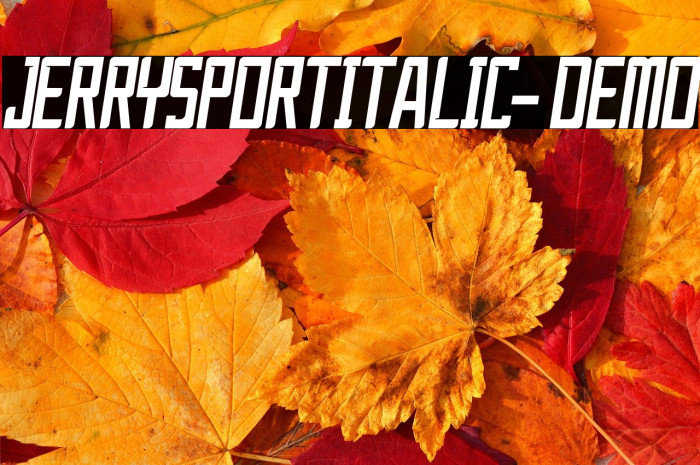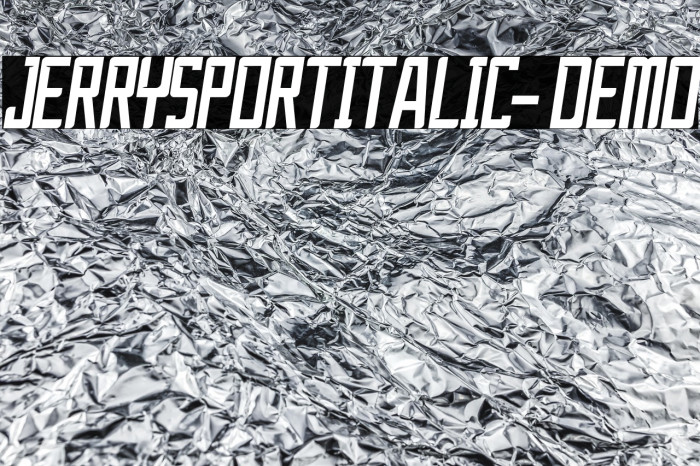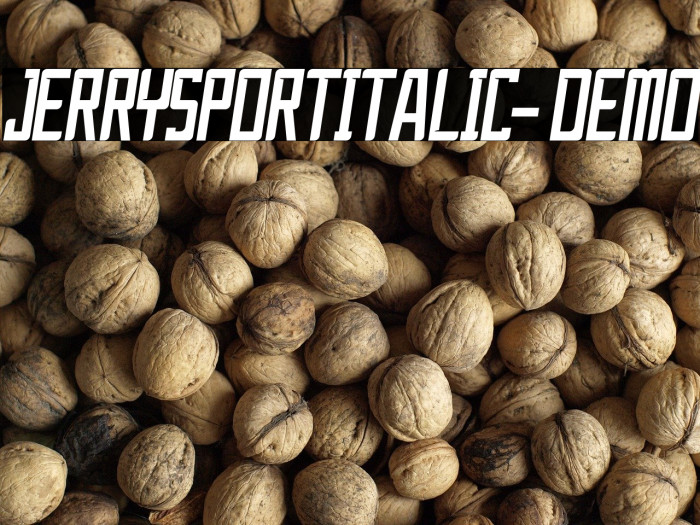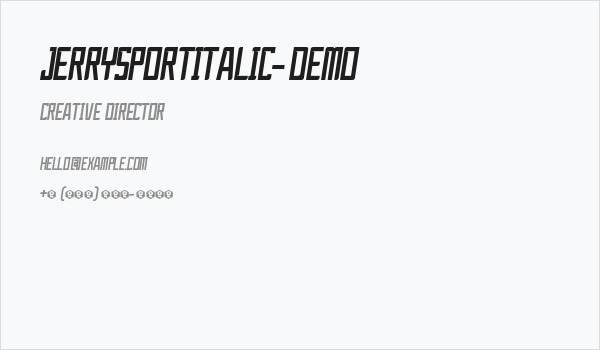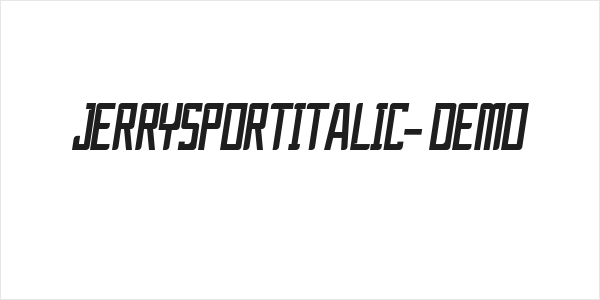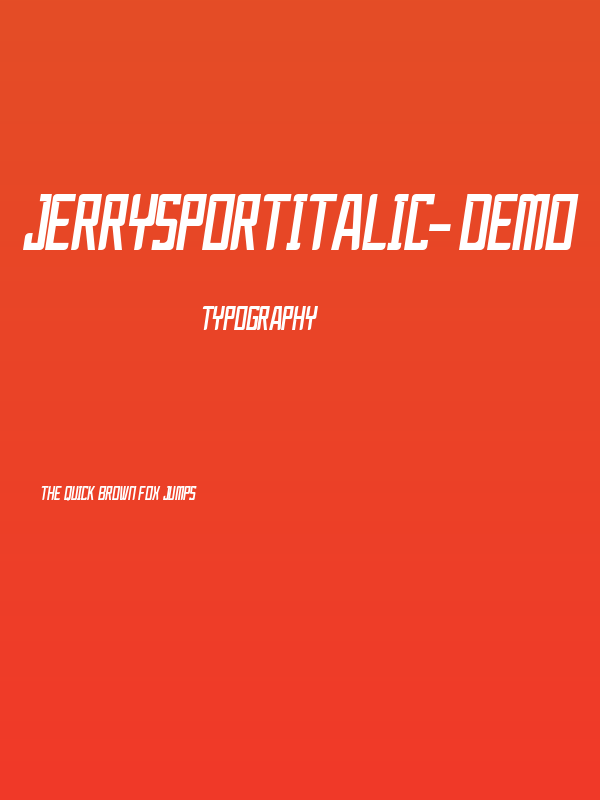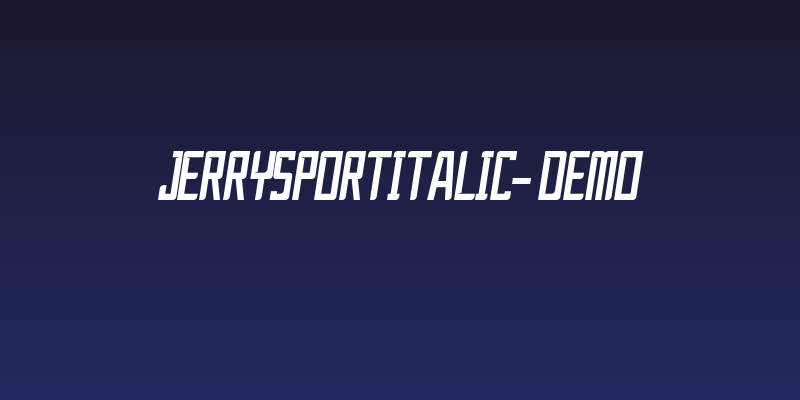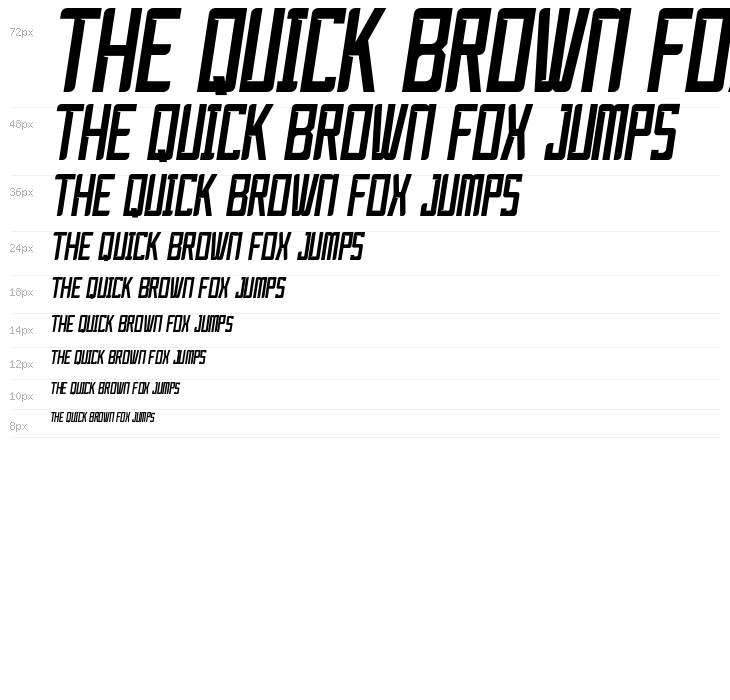
JerrySportItalic-Demo Font
This font features a dynamic and sporty design with a strong italic slant, giving it a sense of motion and energy. The characters are bold and angular, with sharp edges and a modern aesthetic. The uppercase and lowercase letters maintain a consistent style, emphasizing a futuristic and athletic vibe. The numbers and special characters follow the same design principles, ensuring uniformity across all glyphs. This font is ideal for projects that require a bold and energetic look, such as sports branding, dynamic posters, or modern digital interfaces.
Proposed ProjectsIdeal for sports branding, dynamic posters, and modern digital interfaces.